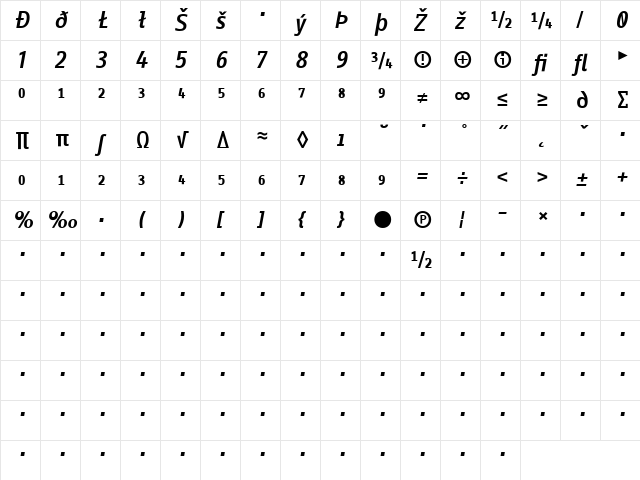
InfoOffice Bold Italic
Design Context for InfoOffice Typeface
InfoOffice is a composed and adaptable typeface that performs quietly and consistently across a wide range of design contexts. Its italic angle brings a sense of urgency and motion to the letterforms. Its bold stroke weight gives it real presence on the page.
Pro Tip: Use InfoOffice for emphasis, pull quotes, and subheadings where its slanted energy can add rhythm to the layout.